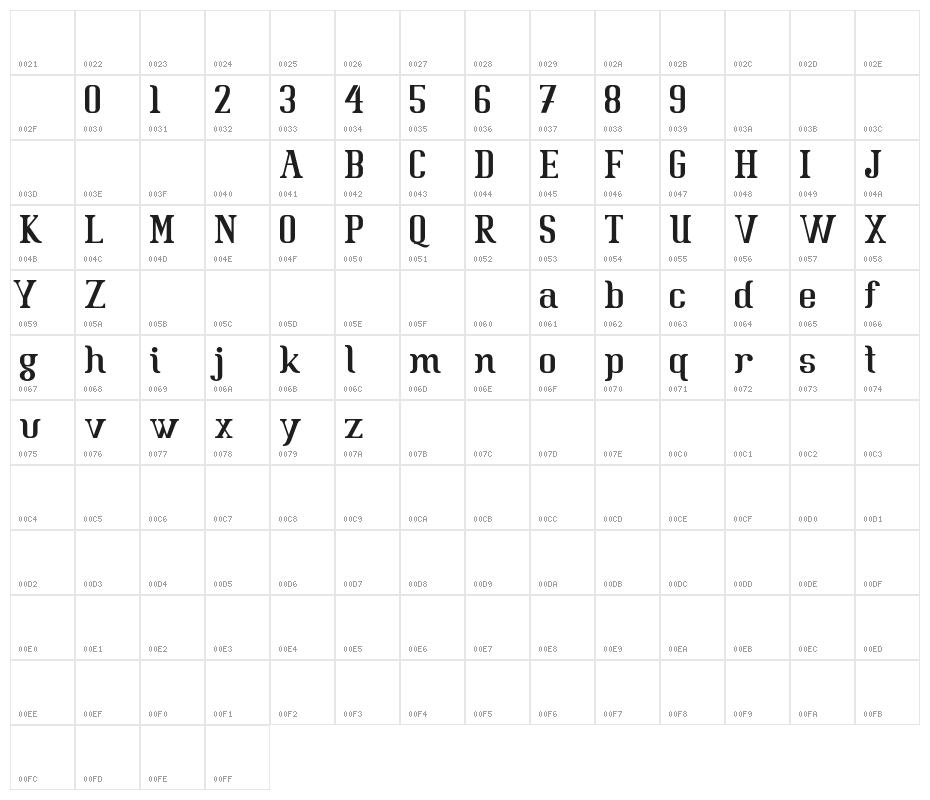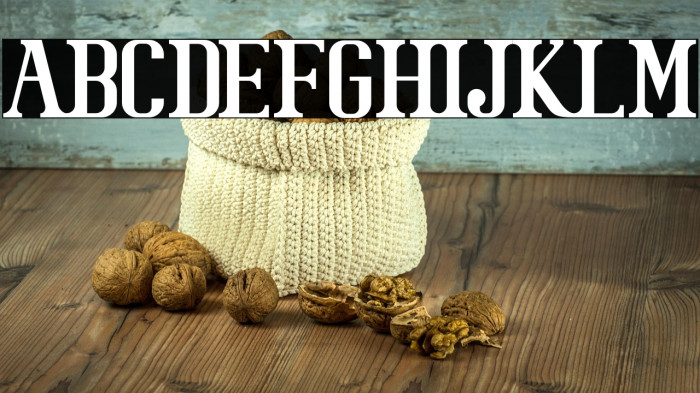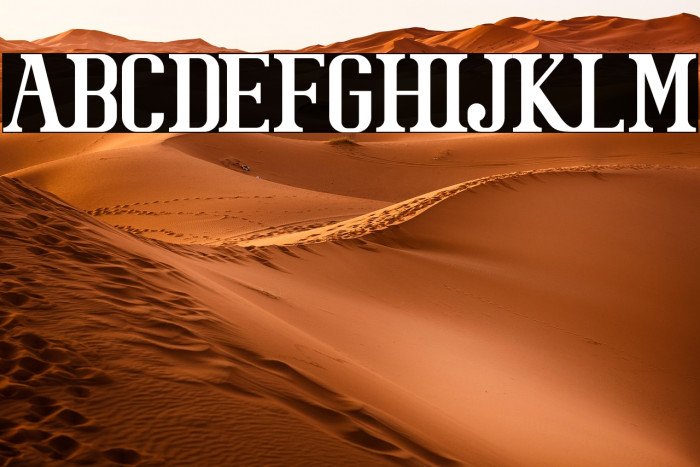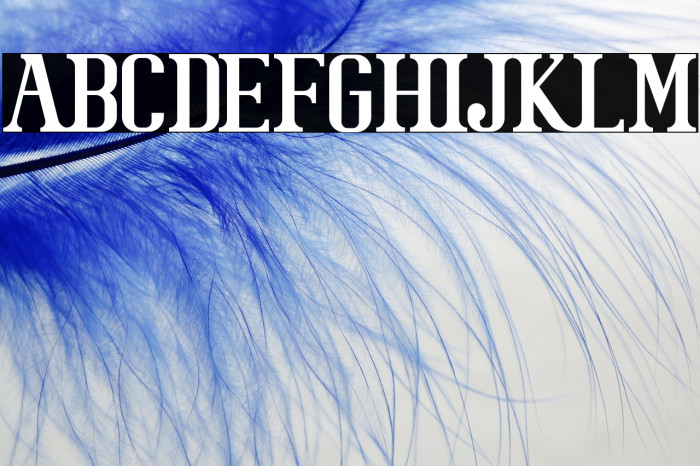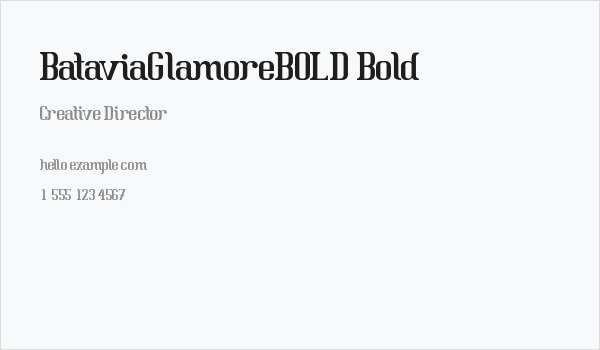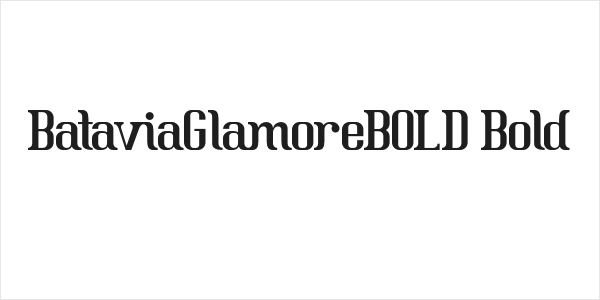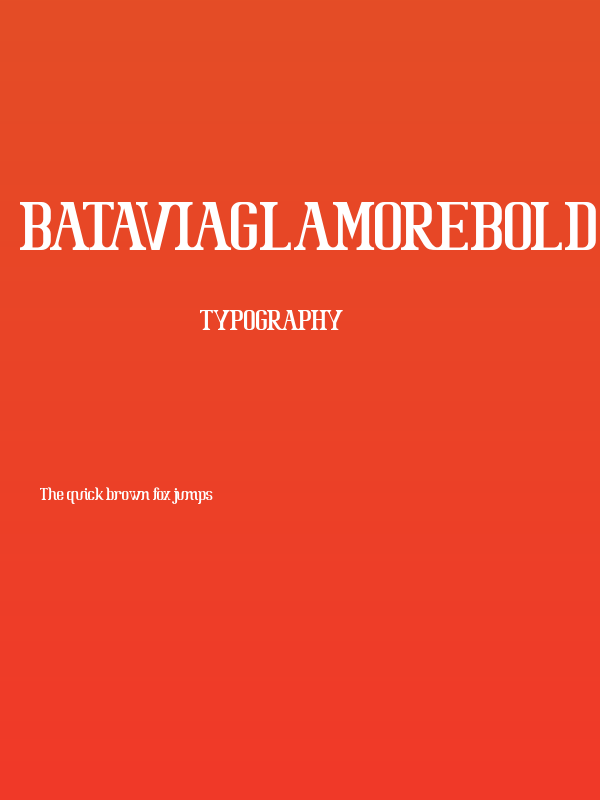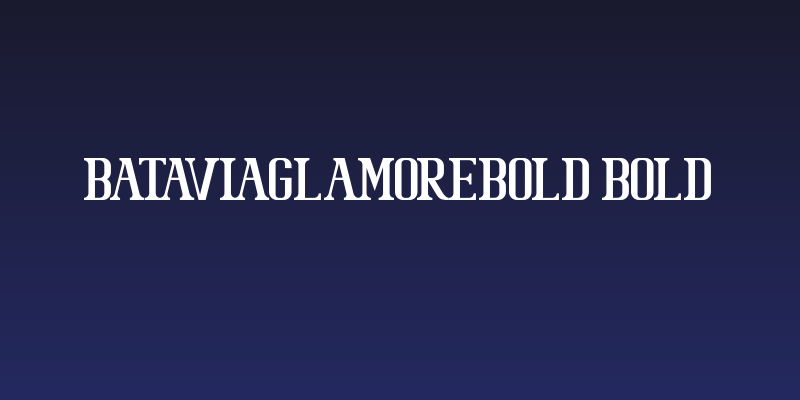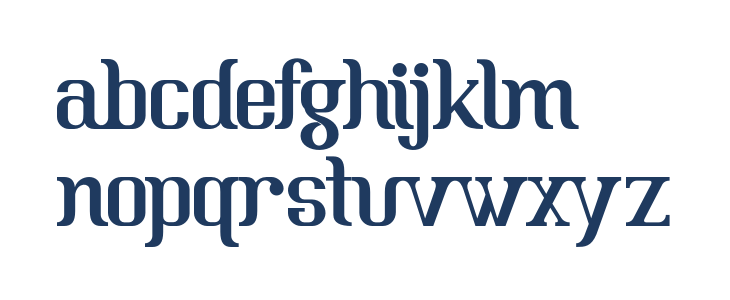
BataviaGlamoreBOLD-Bold Font
BataviaGlamoreBOLD-Bold Description
This font features a bold and striking design with a strong presence. The uppercase letters are tall and commanding, with a slight curvature that adds a touch of elegance. The lowercase letters maintain a consistent style, offering a harmonious blend of curves and straight lines. The numerals are robust and clear, ensuring readability. The overall design is reminiscent of vintage typography, yet it carries a modern twist with its clean lines and bold strokes. This font is ideal for making a statement, whether in headlines or logos, due to its distinctive and memorable appearance.
Overall StyleVintage
Proposed ProjectsIdeal for branding, poster design, book covers, and any project requiring a bold, memorable typeface.